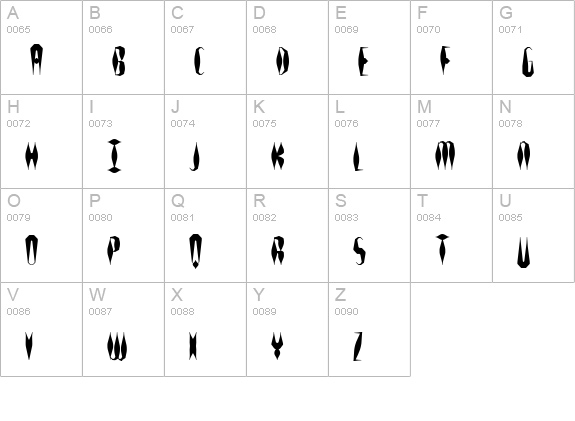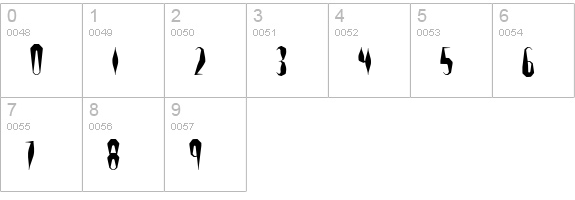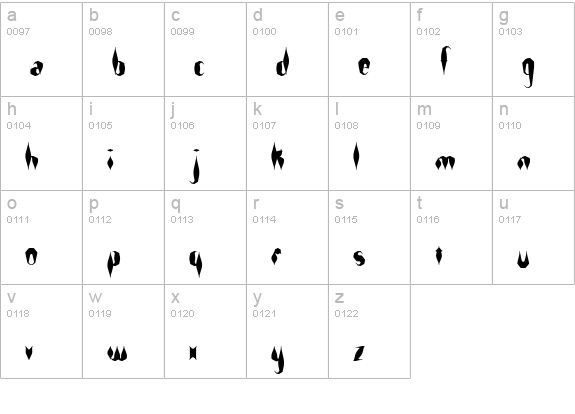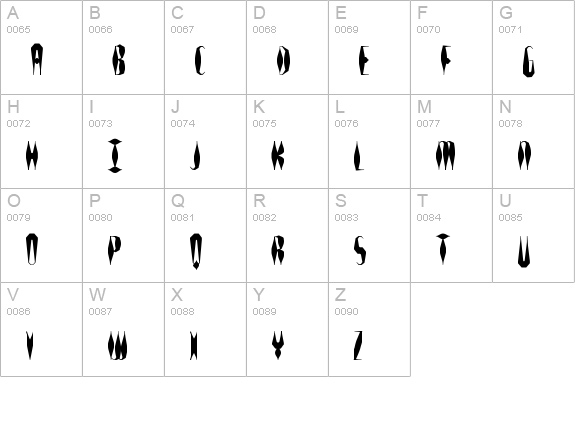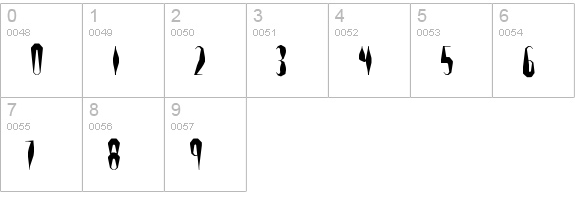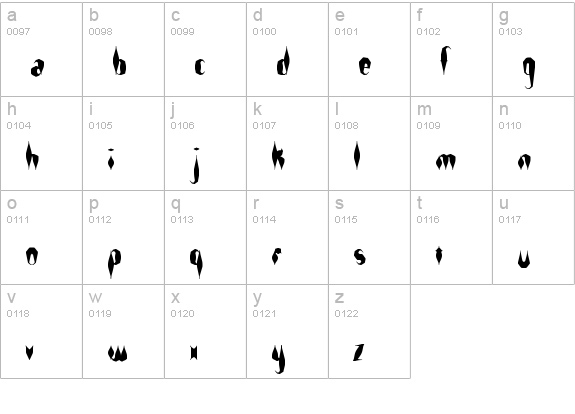
Quill Experimental S BRK Font Details
Quill Experimental S BRK font is an exquisite and captivating typeface that pushes the boundaries of traditional typography. With its unique blend of grace and edginess, this font stands out among the crowd, making a bold statement with every character. Designed with meticulous attention to detail, Quill Experimental S BRK font features intricate and fluid letterforms that effortlessly flow from one to another. The delicate curves and sharp angles create a harmonious balance that is both visually appealing and legible. One of the best aspects of Quill Experimental S BRK font is that it is freely available to download at FontsMarket.com. This means that anyone can enjoy the beauty and versatility of this font without any cost. Whether you are a professional designer looking to elevate your projects or an individual looking to add a touch of sophistication to personal creations, Quill Experimental S BRK font is the perfect choice. With its extensive character set, Quill Experimental S BRK font offers endless possibilities for creative expression. From elegant logos and branding to eye-catching headlines and striking typography in print or digital media, this font is a versatile tool that will enhance any design. Quill Experimental S BRK font is a true gem in the world of typography, offering a seamless blend of elegance and innovation. Its free availability at FontsMarket.com makes it accessible to all, allowing designers and enthusiasts alike to embrace this font's unique charm and unleash their creativity. So why wait? Download Quill Experimental S BRK font today and let your imagination soar.